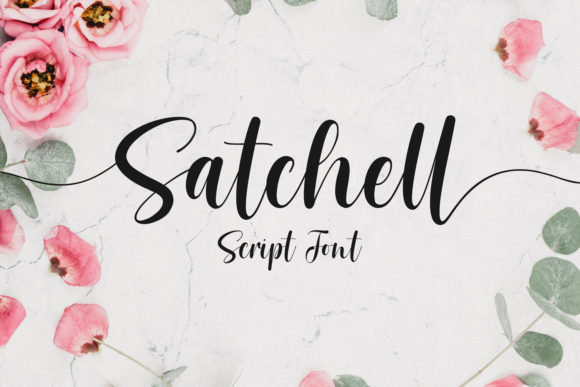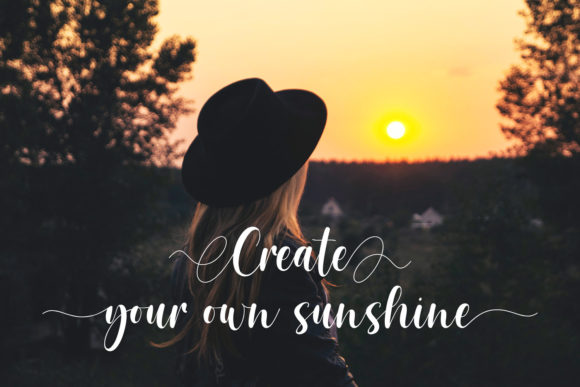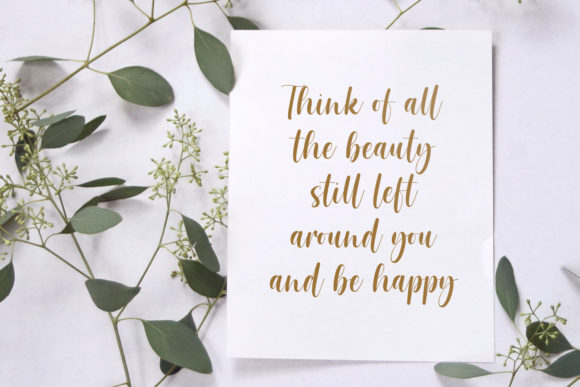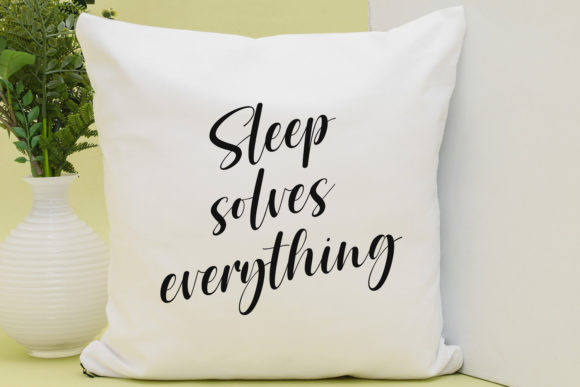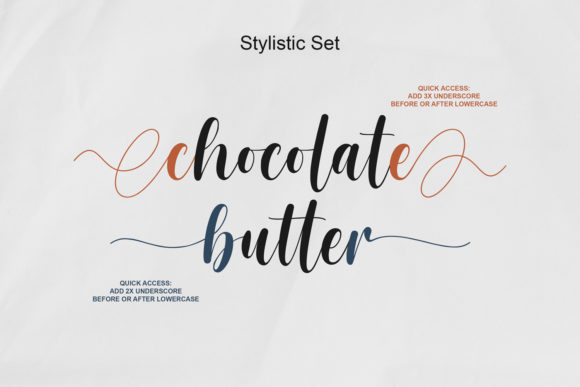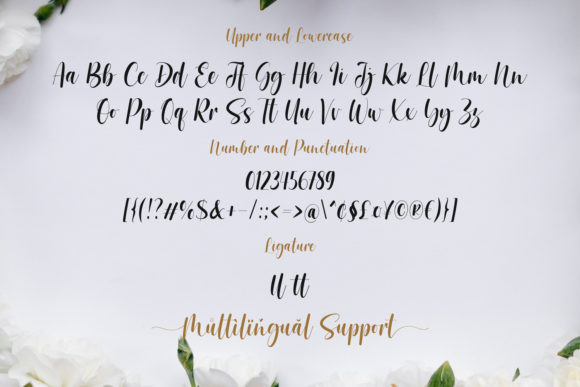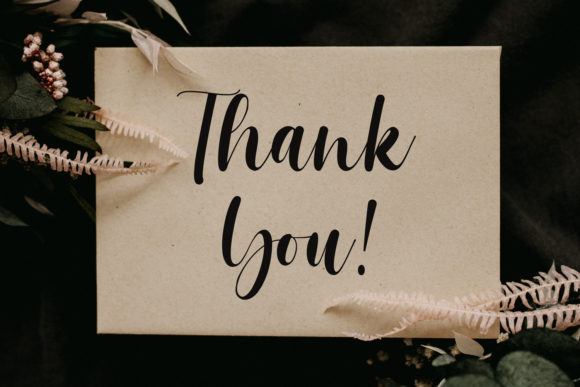
Satchell Font
About Satchell Font
Satchell is a lovely and relaxed handwritten font. It is PUA encoded which means you can access all of the glyphs and swashes with ease! it has a gentle and beautiful flow, and as a result it will elevate each of the designs you wish to create!